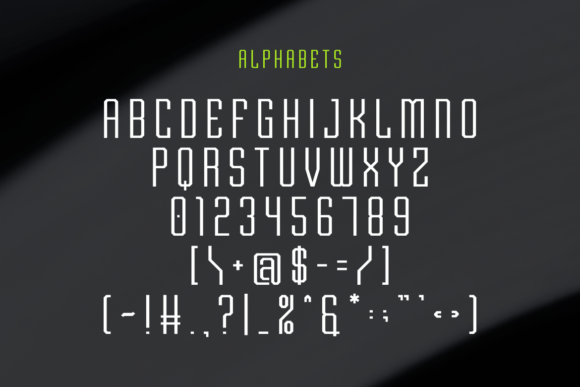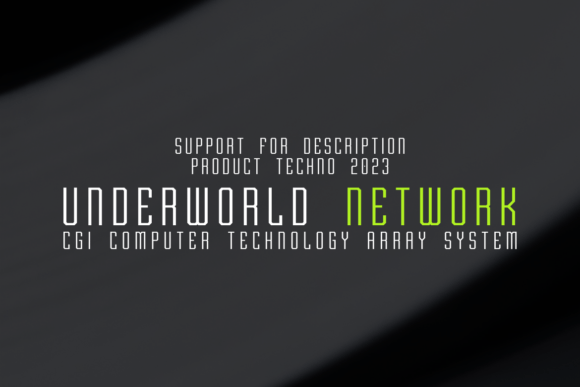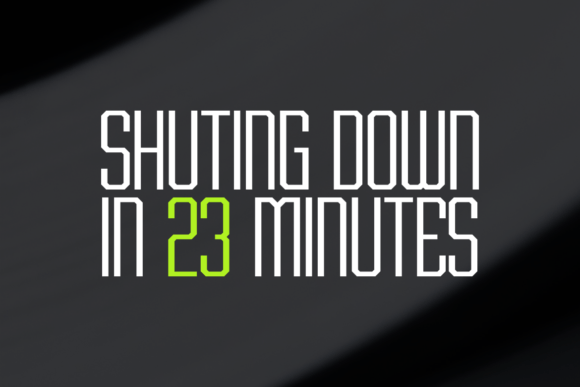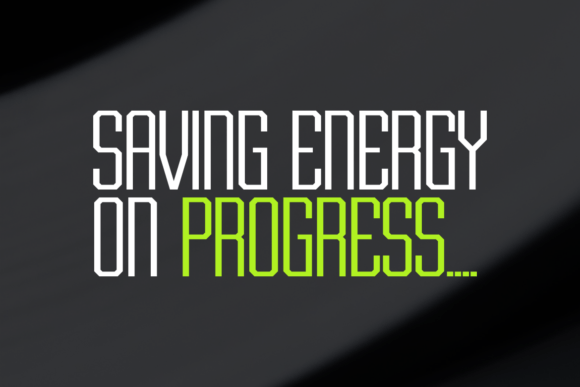
Introduction to Cenpogis Font Font
Fonts play a crucial role in design, and the Cenpogis Font font is a typeface that brings both character and versatility to any project. Whether you’re working on a branding project, a website, or a print design, the Cenpogis Font font offers a unique style that can elevate your work.
Cenpogis is a sleek technology-type font.
Used for designs related to the world of robotics, software, or hardware, this font will definitely make an impact .
Key Features of Cenpogis Font Font
Why Choose Cenpogis Font Font?
The Cenpogis Font font is more than just a typeface – it’s a design tool that helps you communicate your message with style and clarity. Its unique character set and versatile design make it suitable for a wide range of applications, from elegant invitations to bold headlines.
With its carefully crafted letterforms and balanced proportions, the Cenpogis Font font ensures readability and visual appeal across all mediums.
What makes Cenpogis Font font special?
The Cenpogis Font font stands out with its unique design, exceptional readability, and versatility across various design applications.